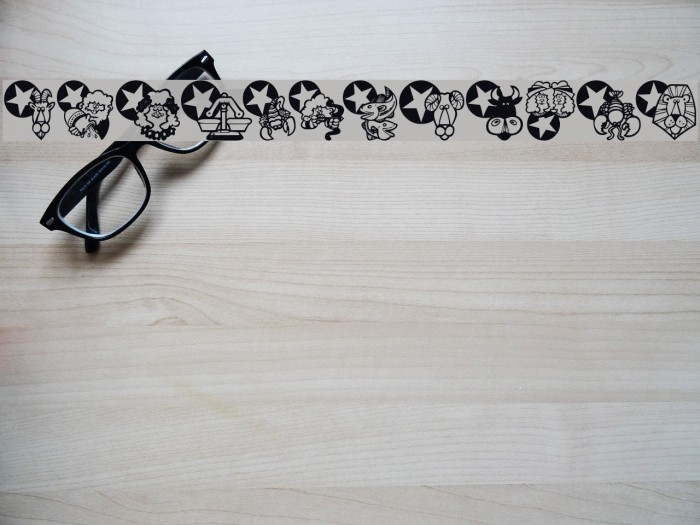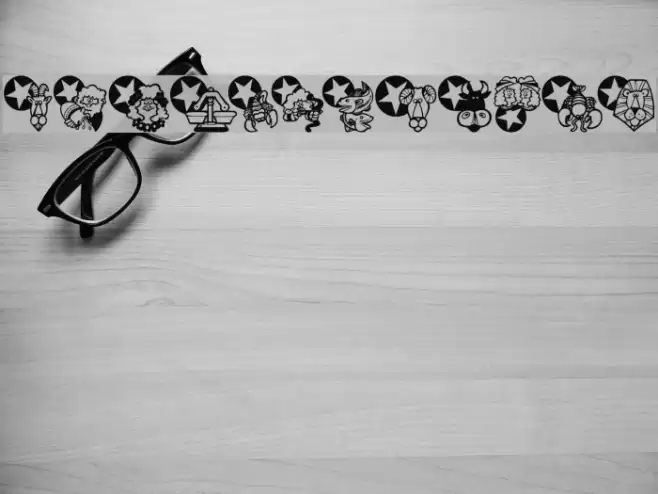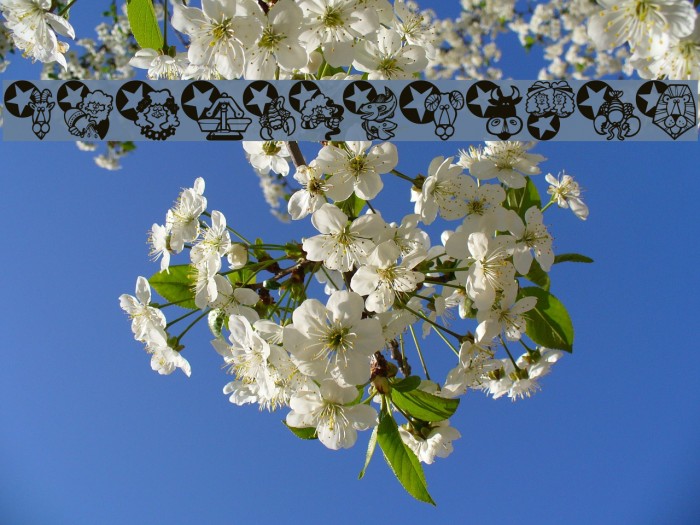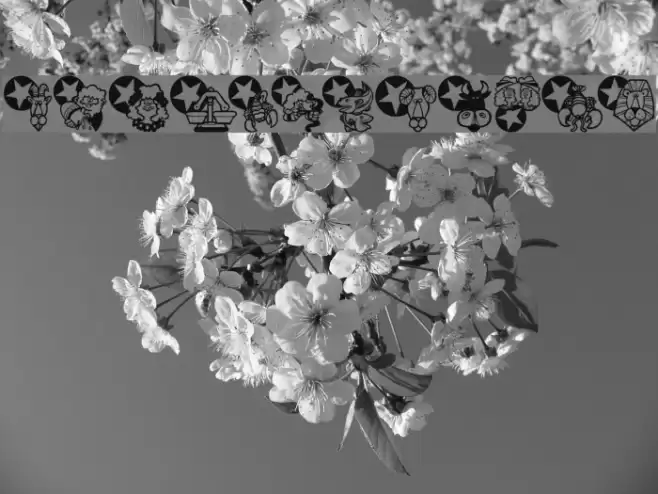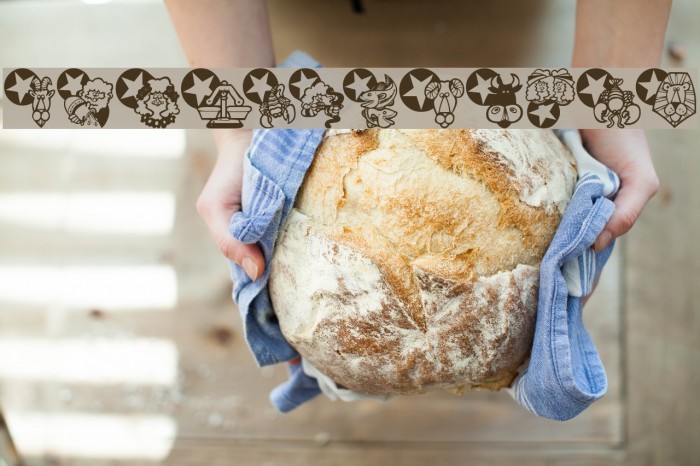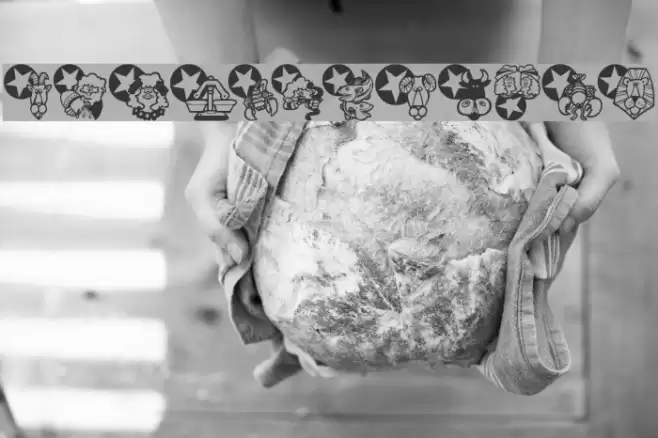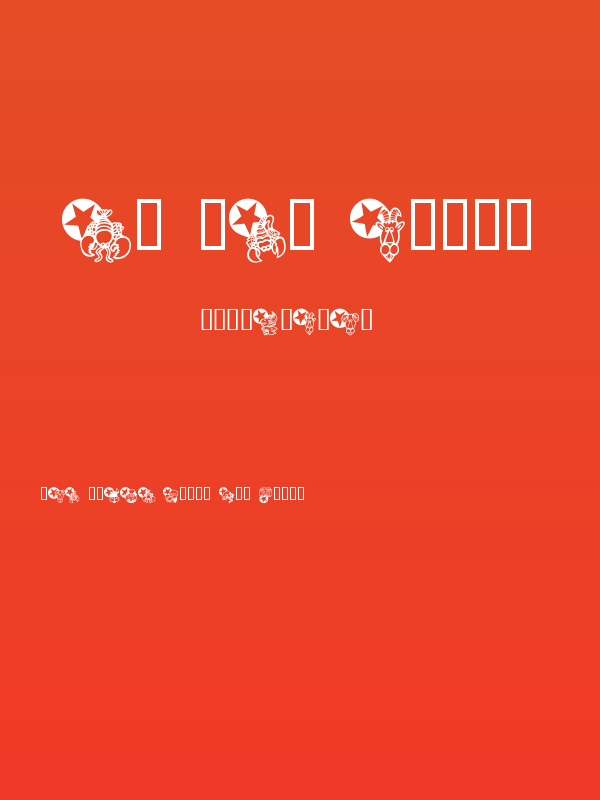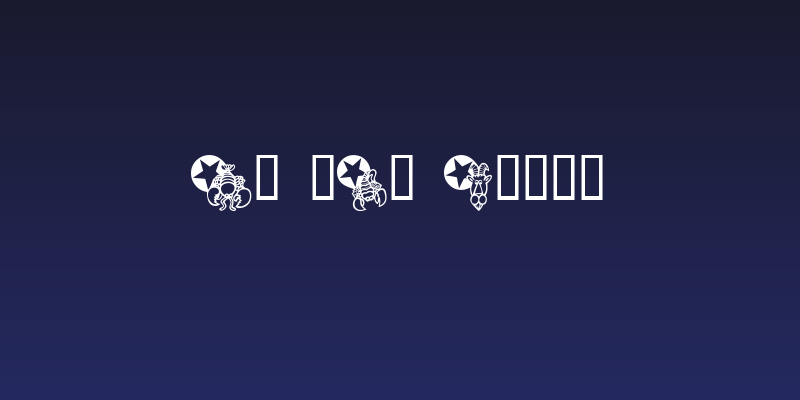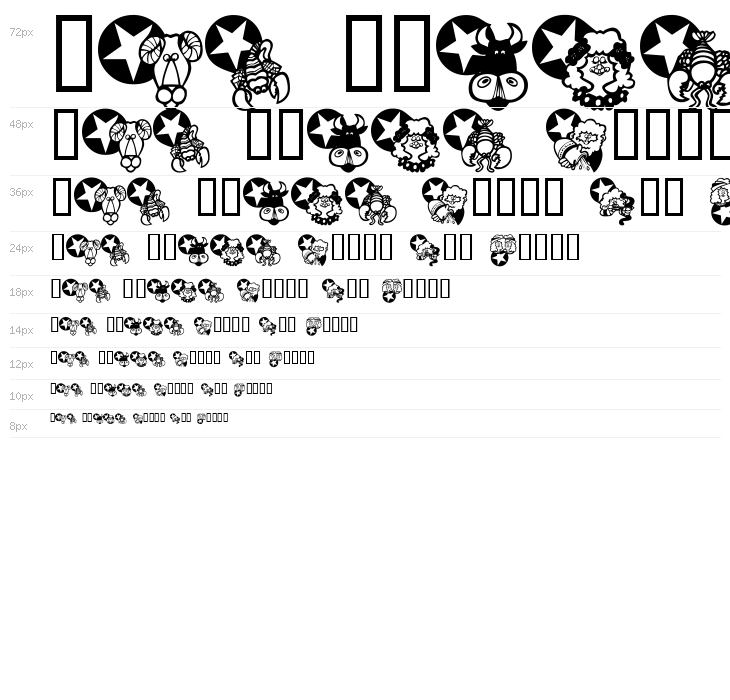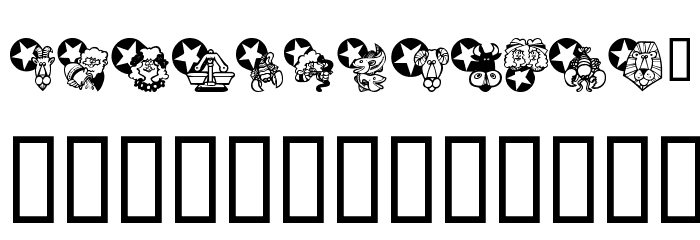
KR New Astro Font
KR New Astro Description
This design features a collection of zodiac-themed symbols, each intricately crafted to represent the twelve astrological signs. Each symbol is encased within a circular frame, adorned with a star motif, adding a celestial touch. The designs are bold and detailed, capturing the essence of each zodiac sign with artistic flair. The symbols are distinct and easily recognizable, making them suitable for various creative applications. The overall style is decorative and thematic, appealing to those interested in astrology and celestial aesthetics.